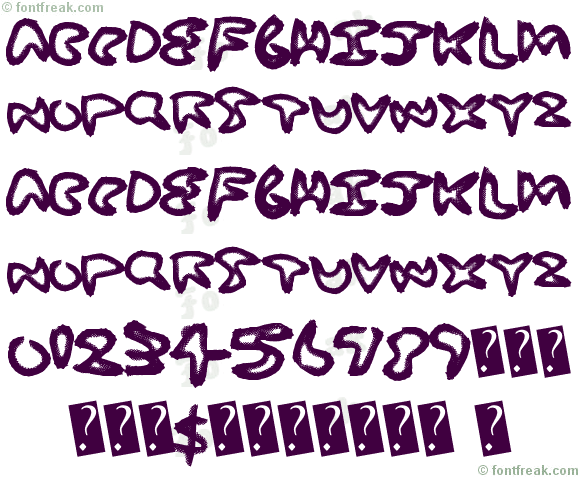
SodaWater
The SodaWater font by Xerographer Fonts is an eye-catching display typeface that exudes a playful and energetic vibe, making it perfect for a variety of creative projects. This unique font features a bold, irregular stroke weight that adds a sense of spontaneity and movement. The contrast between thick and thin lines creates a dynamic visual appeal, while its slightly uneven letterforms contribute to its hand-drawn, organic feel. The spacing is relatively open, enhancing readability and making it suitable for both headlines and short blocks of text.
SodaWater is ideal for a range of applications, particularly where a fun and casual aesthetic is desired. It can be effectively used for vibrant wedding invitations that want to convey a sense of joy and celebration. Additionally, it works wonderfully for movie posters, especially in genres like animation or comedy, where the playful nature of the font can draw attention. Restaurant menus can benefit from SodaWater’s lively character, making the dining experience feel more inviting and relaxed. Content creators looking to add a unique touch to their digital media, such as social media graphics or blog headers, will also find this font to be a valuable asset.